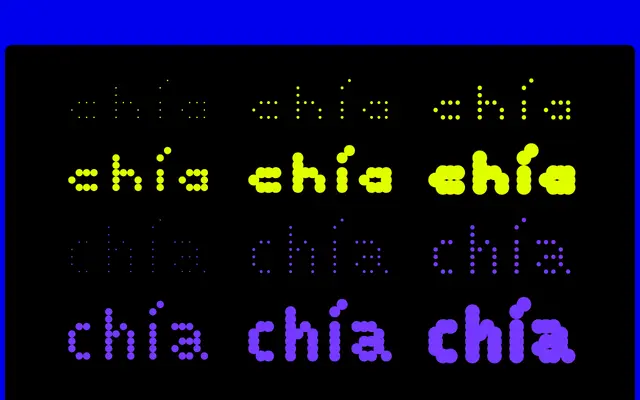
Chia
Hungarumlaut · Adam Katyi · 2025
A modular dot typeface built entirely from circles, structured around two grid variants and six dot-size steps that range from airy to densely overlapping.
Designed by Adam Katyi, Chia draws from the logic of old traffic and construction pixel screens, translating their grid constraints into a typographic system made wholly of circles. Two structural versions define the family: Chia 5, built on a five-dot grid for a raw, minimal quality, and Chia 7, offering a seven-dot height with greater legibility. Six visual steps per version, numbered 20 through 200, vary dot size rather than stroke weight, so at 200 the circles overlap into dense, sculptural masses.
Chia is a display typeface constructed entirely from circles arranged on a dot grid, referencing pixel and traffic screen aesthetics. Its modular, grid-based construction and purely experimental character place it firmly in the display category with a dot/pixel subcategory.